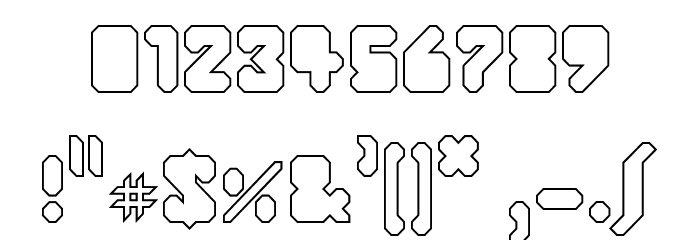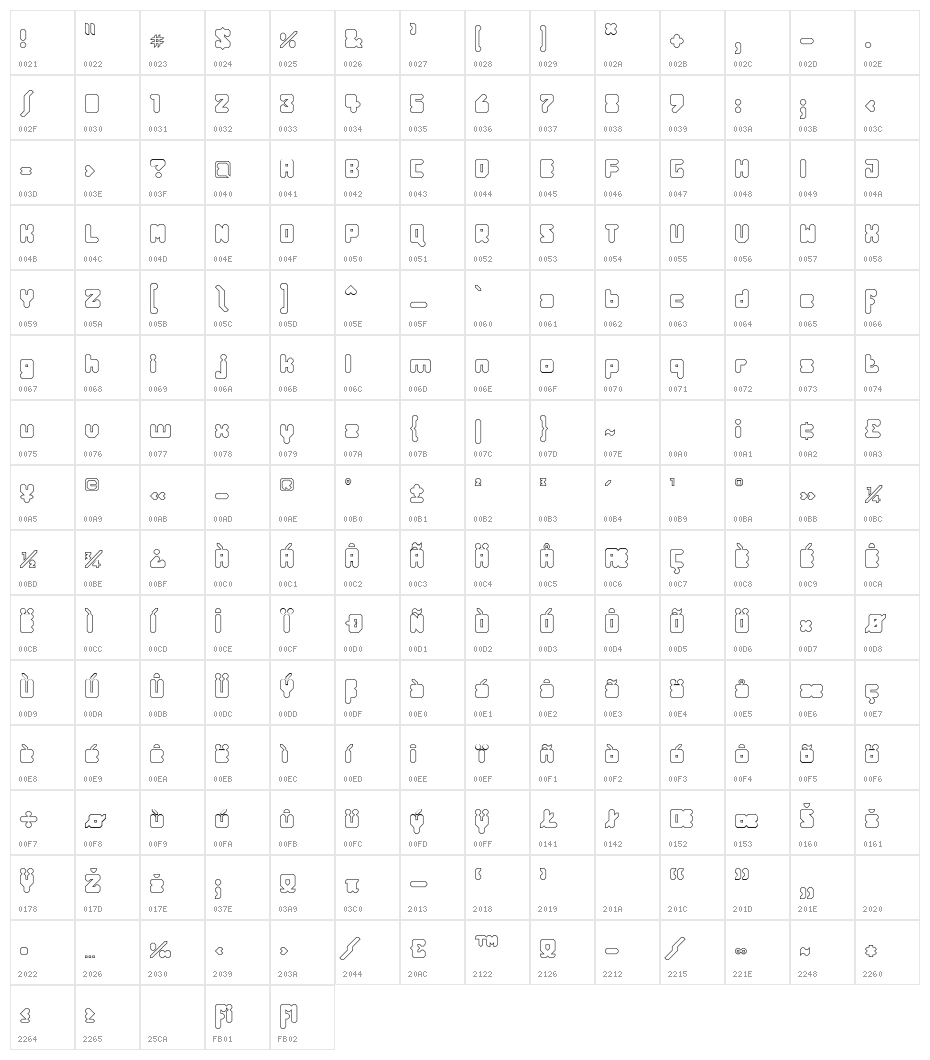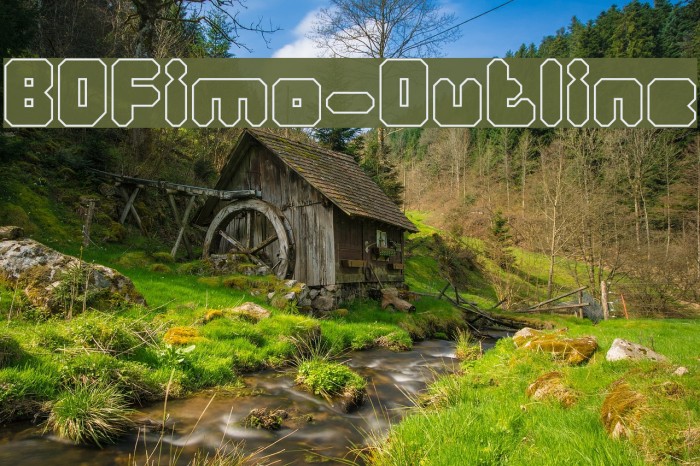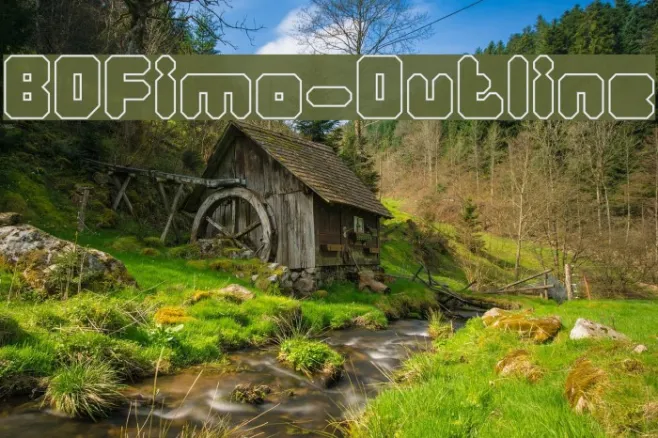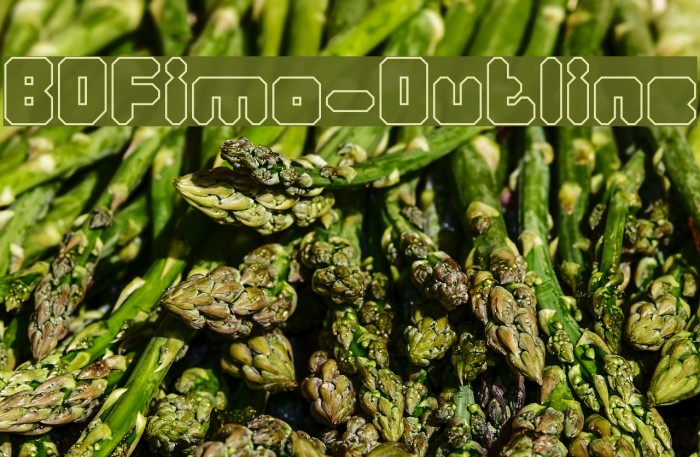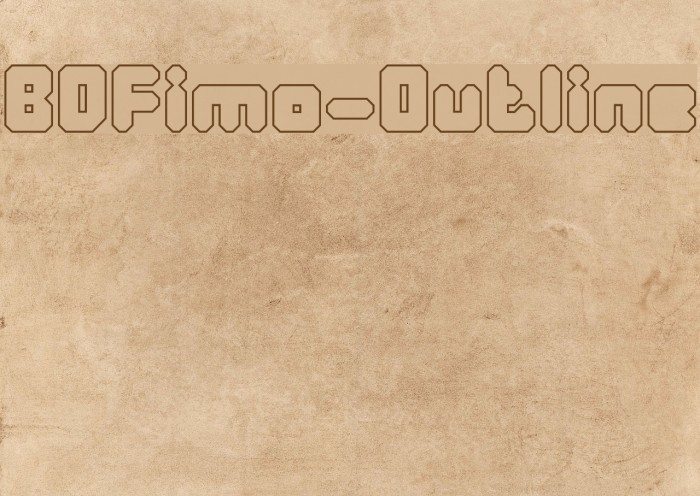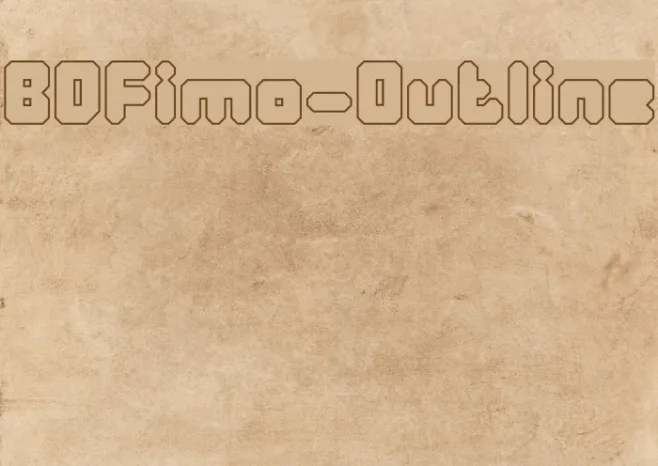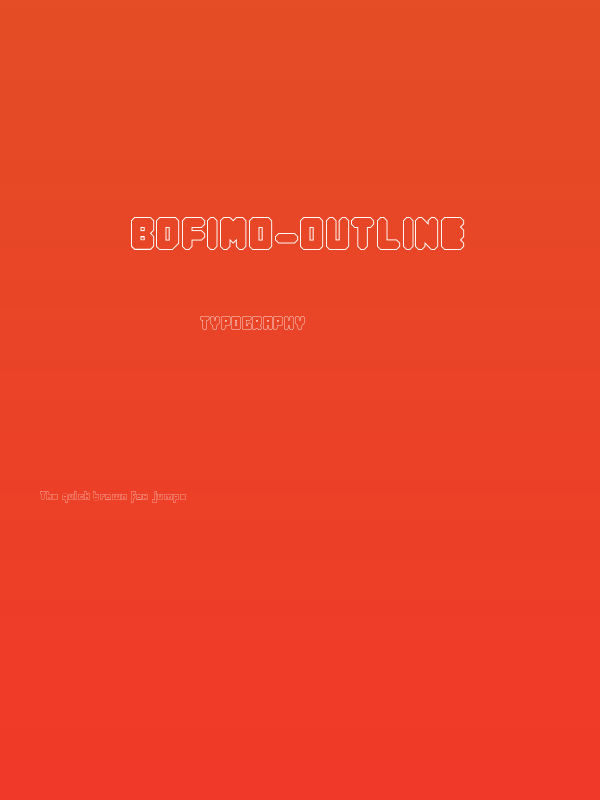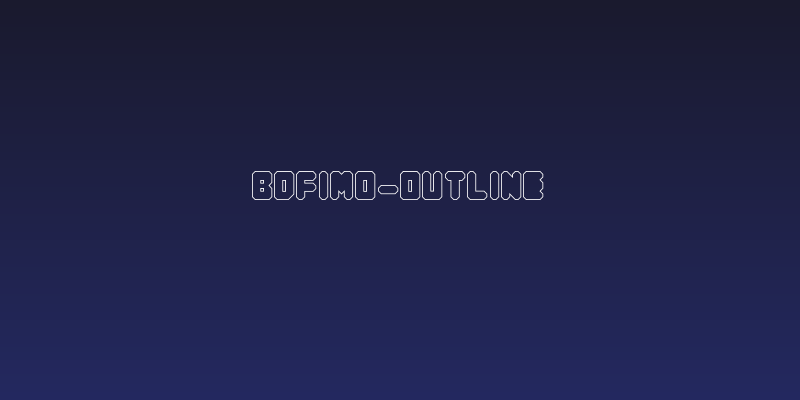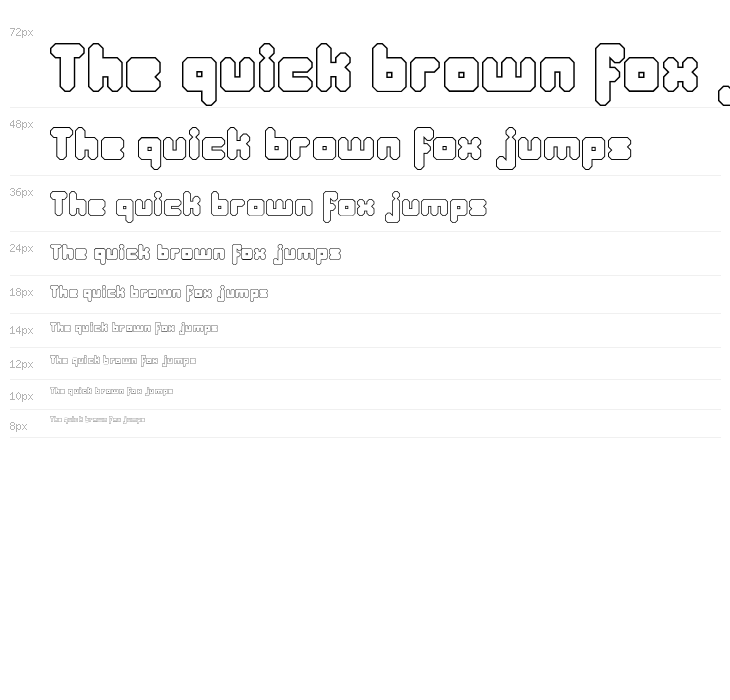
BDFimo-Outline Font
BDFimo-Outline Description
This font features a bold, geometric outline style with a modern and futuristic appearance. Each character is defined by thick, angular lines that create a strong and impactful visual presence. The uppercase and lowercase letters maintain a consistent design, emphasizing sharp edges and a block-like structure. Numbers and special characters follow the same design principles, ensuring uniformity across all glyphs. The font's unique outline style makes it stand out, offering a distinct look that is both eye-catching and versatile.